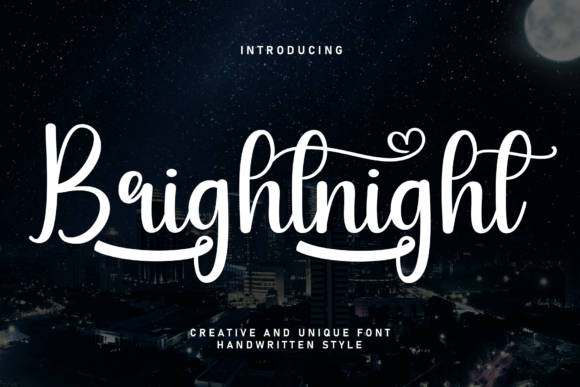
Introducing Brightnight Font, a calligraphy script that captures the allure of moonlit nights and dances with stars. This enchanting font, crafted by the ingenious mind of William Jhody, is a celestial masterpiece. It transforms your designs into a starry spectacle, perfect for conjuring worlds of whimsy and wonder.
Brighnight Font's delicate strokes and graceful curves dance across the page like moonbeams, evoking a sense of magic and enchantment. Its intricate details, reminiscent of constellations scattered across the night sky, lend an air of mystery and elegance to your creations.
With Brightnight Font, your words take on a new life, becoming luminous moonlit tales. Whether you're weaving a fantasy novel, crafting a captivating poster, or designing enchanting invitations, this font paints a picture of wonder that captivates and enthralls.
Immerse yourself in the mystical aura of Brightnight Font. Let its celestial charm illuminate your designs, casting a spellbinding glow that leaves your audience in awe. Its versatility shines across various projects, from wedding invitations that shimmer like starlight to book covers that whisper tales of forgotten lands.
Embrace the magic of Brightnight Font today. Embark on a design journey where imagination knows no bounds. Let your creativity soar as you craft designs that capture the essence of dreams and bring a touch of enchantment to the world.